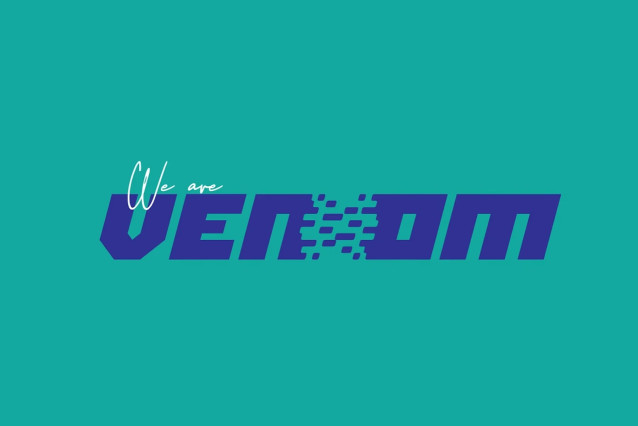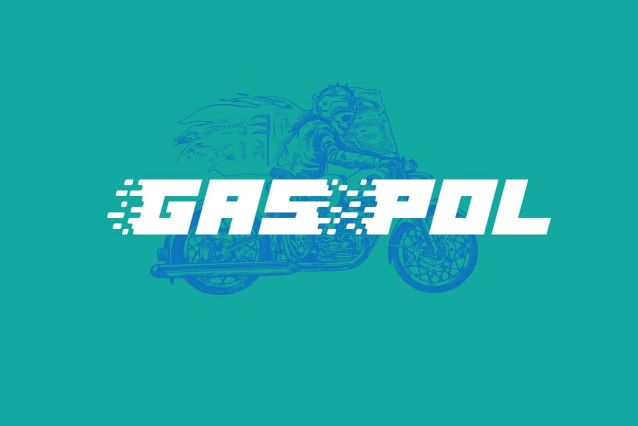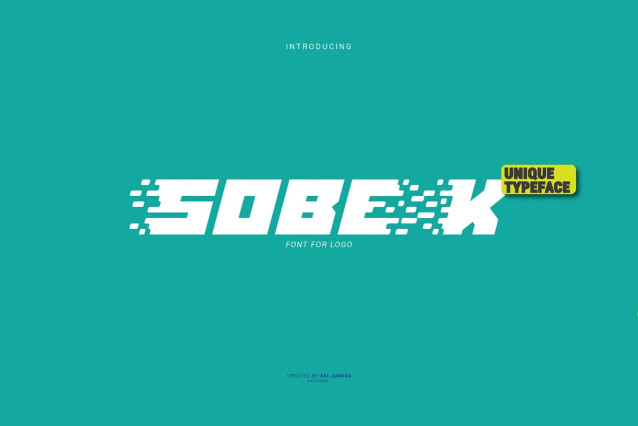
Sobek – Dynamic Torn Display Font
Sobek is a bold and dynamic display font designed to make typography feel fast, sharp, and full of movement. Its distinctive uppercase characters feature fragmented details that create a striking visual impression, giving words an energetic and aggressive character.
What makes Sobek truly unique is its combination of uppercase characters and specially designed uppercase alternates. When the alternates are placed in the middle of a word and combined with the default characters, the lettering appears to tear apart, creating a dramatic torn, ripped, and fragmented effect. This distinctive feature gives you the freedom to transform an ordinary word into a more expressive and dynamic typographic composition.
Sobek also includes default lowercase characters, allowing you to create different typographic combinations while maintaining the font’s strong visual identity. Use the standard uppercase for a clean and powerful appearance, or introduce the alternate characters to create a more aggressive and disrupted look.